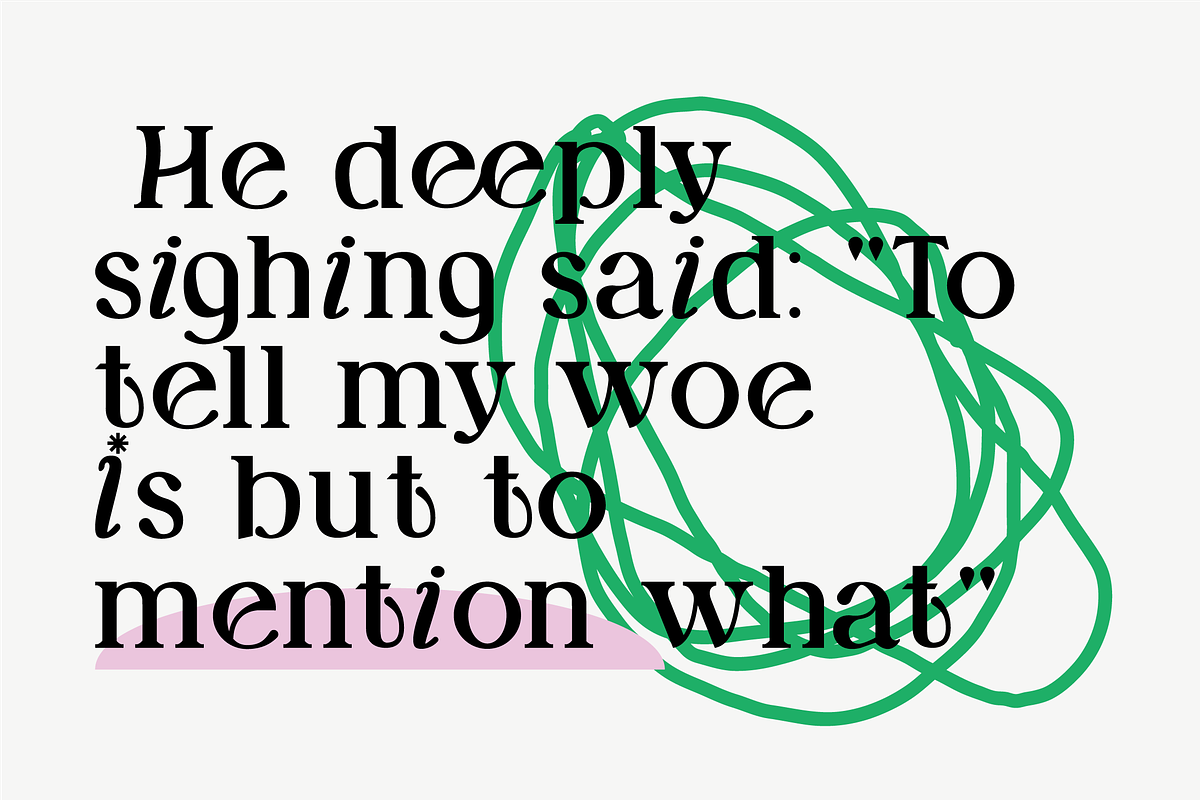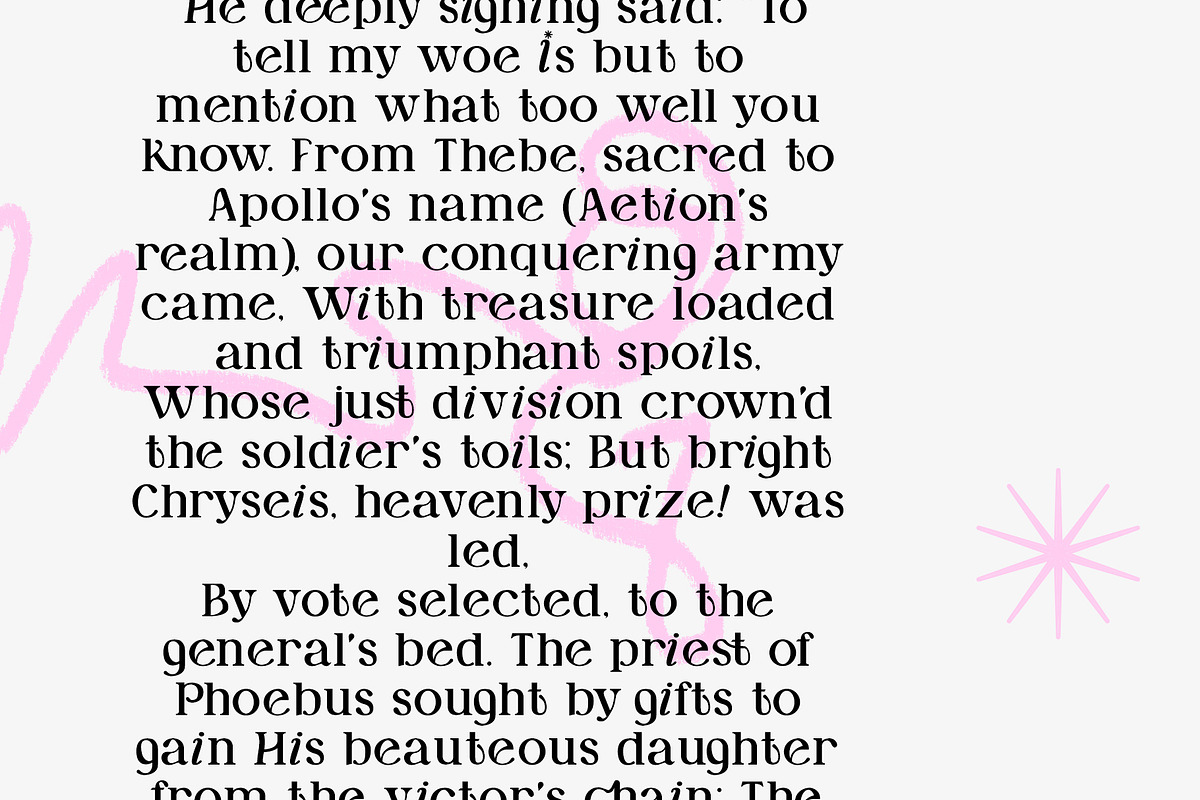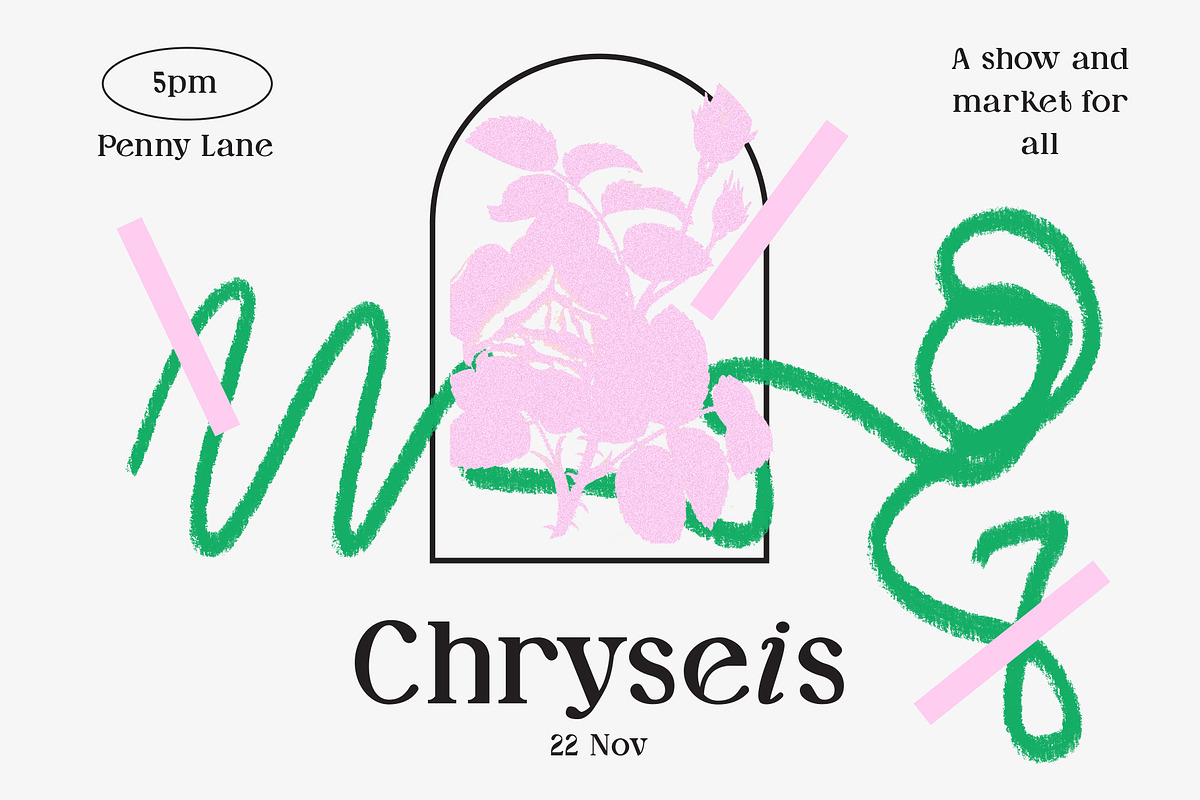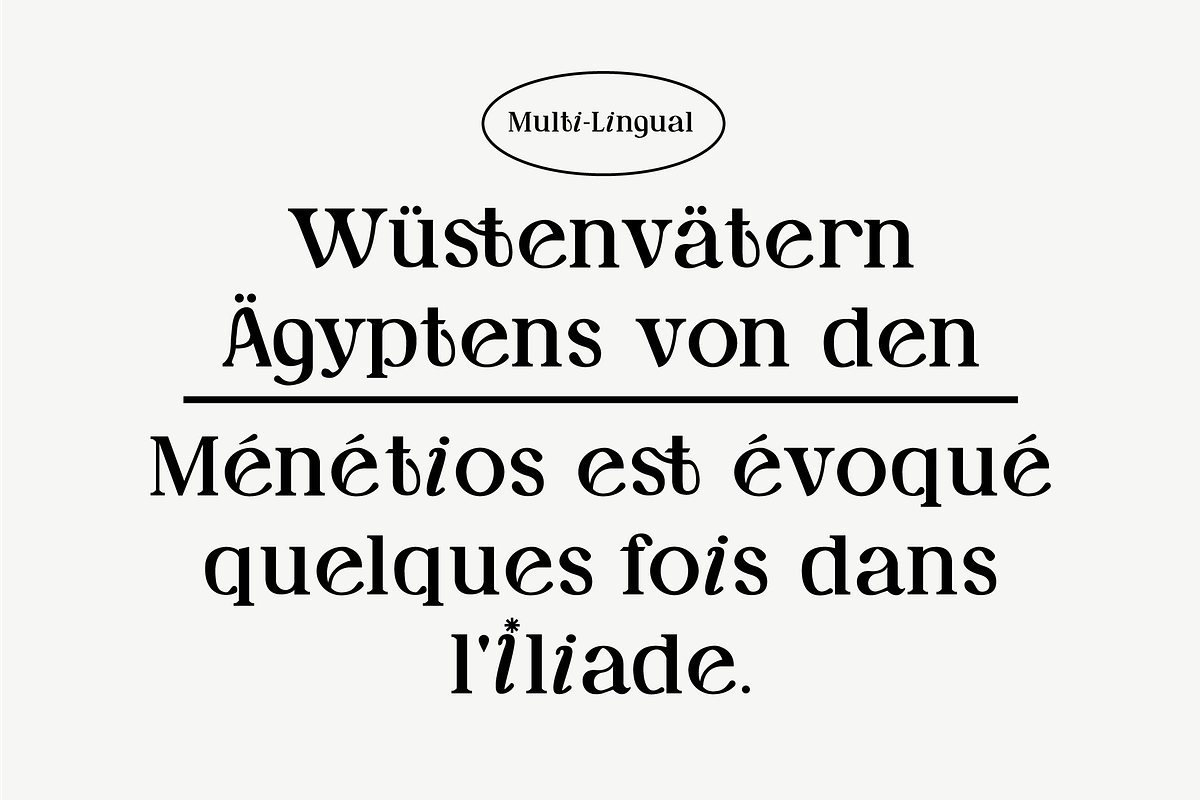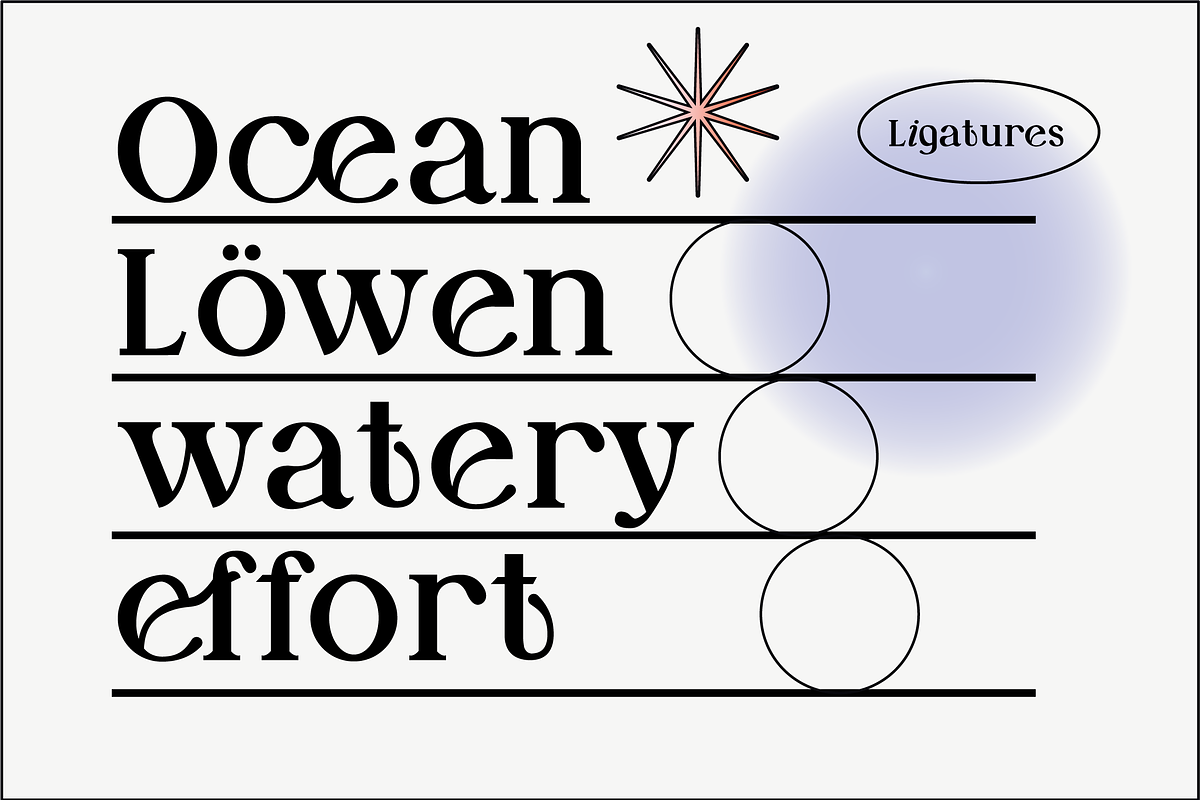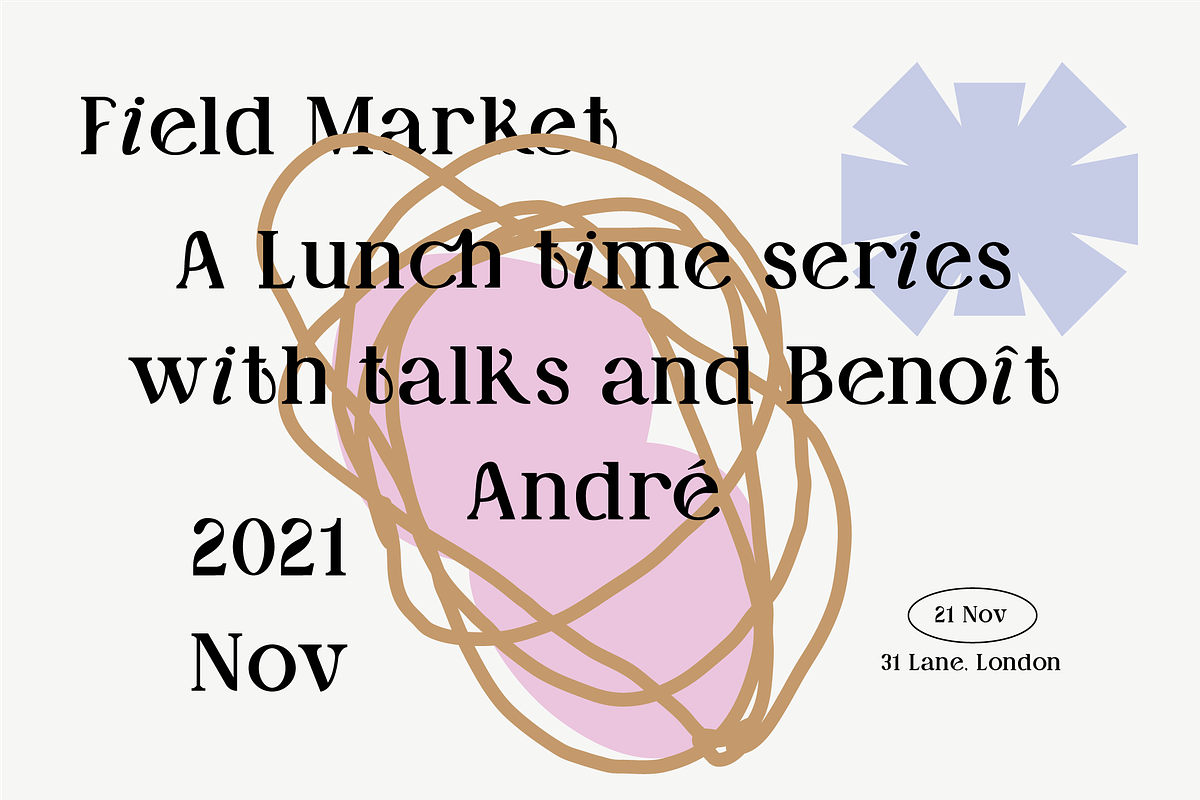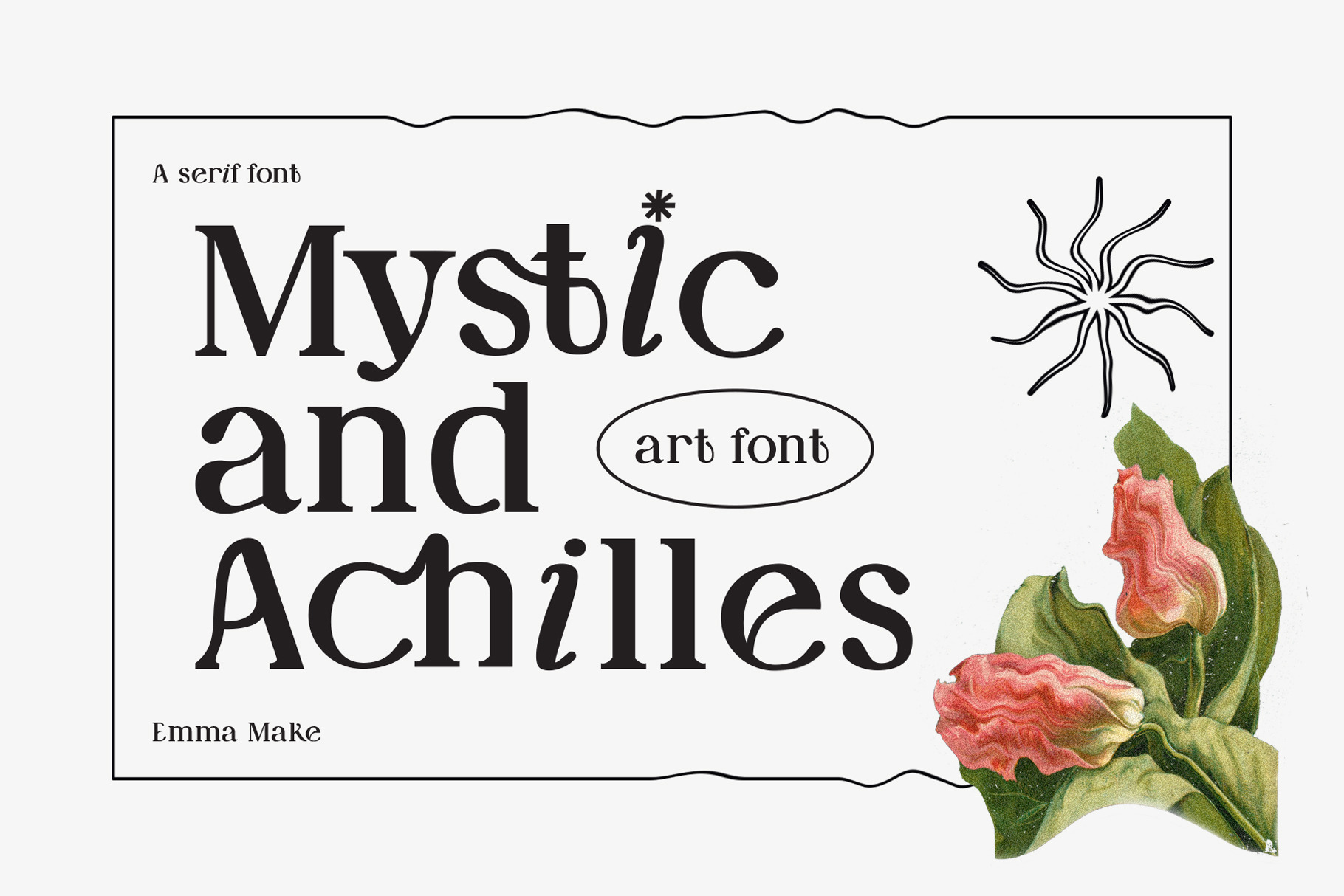
Mystic and Achilles Art Font
Mystic and Achilles is an art font inspired by art nouveau and greek mythology. The font is modern and unique and ideal for contemporary brand design or forward thinking graphic design. The font comes complete with uppercase, lowercase, numbers, ligatures punctuation and multi-lingual capabilities.
- Accents
- Numbers and Punctuation
- Unique Ligatures